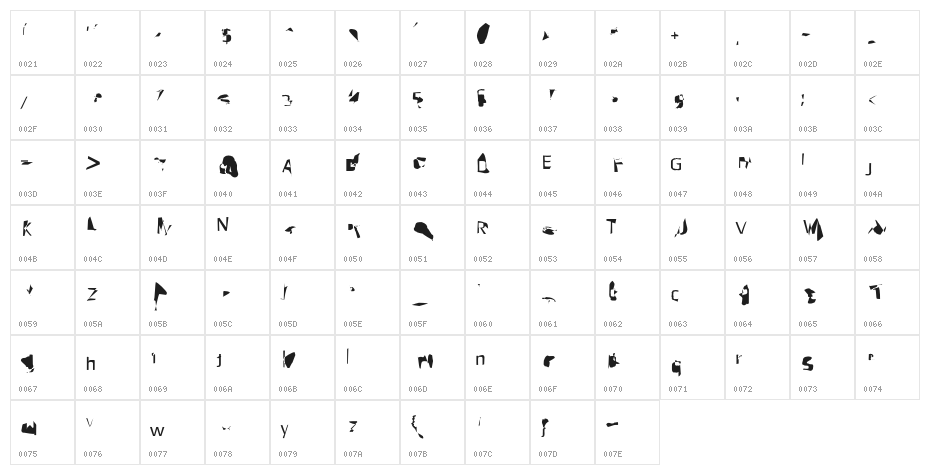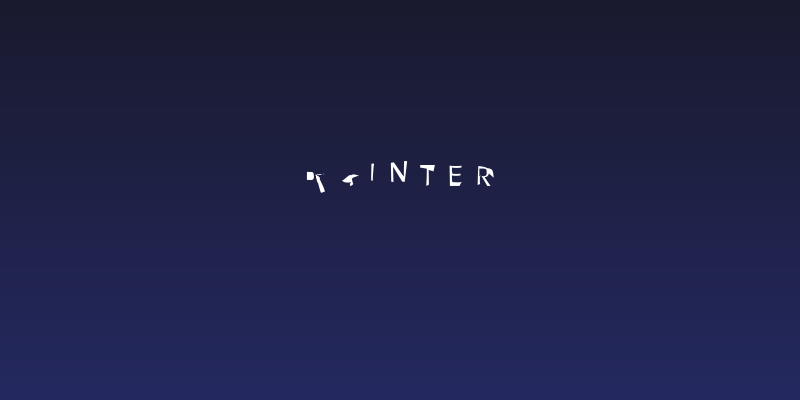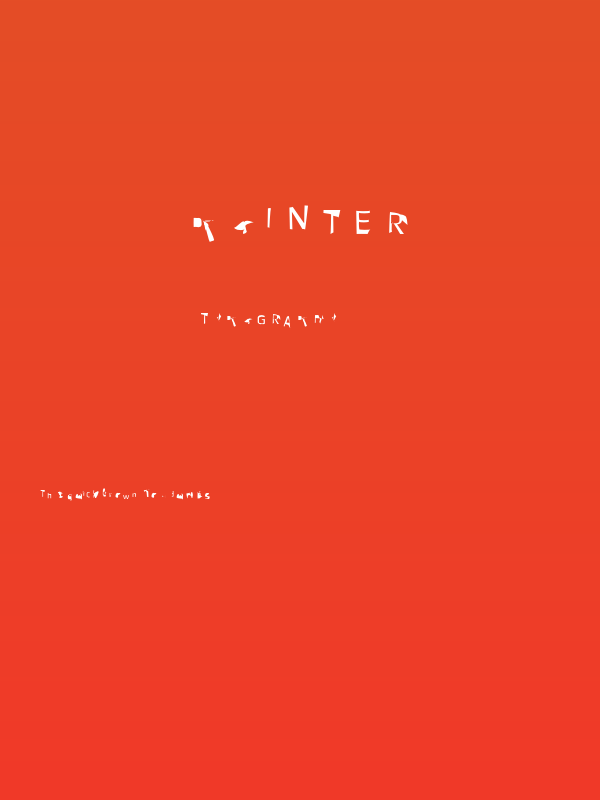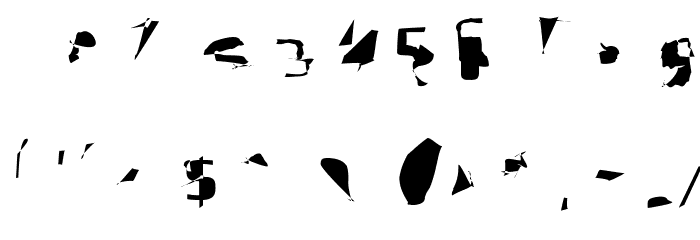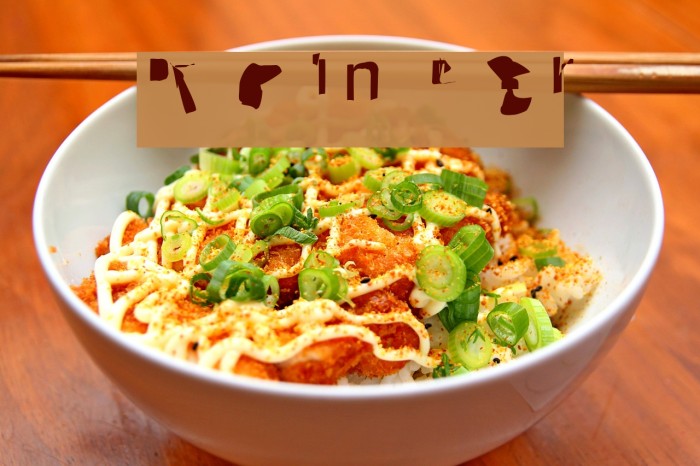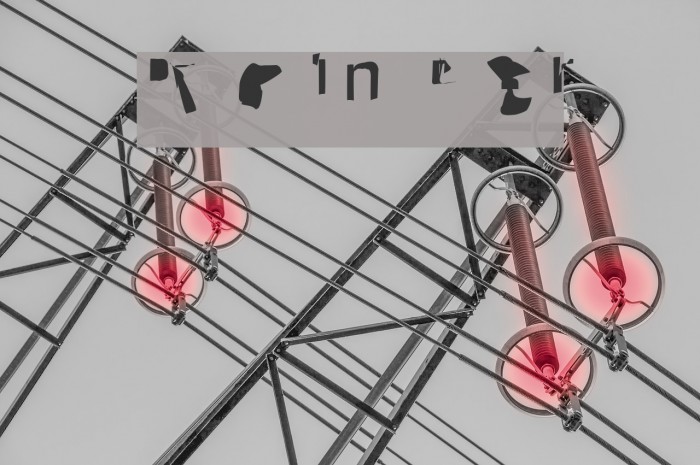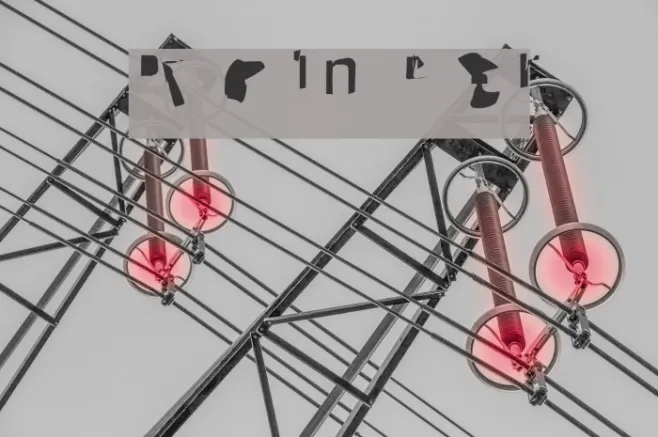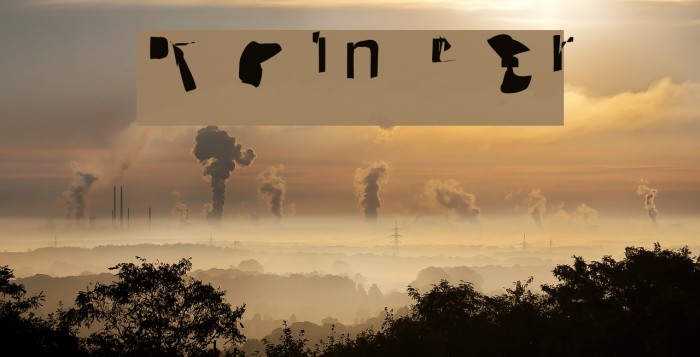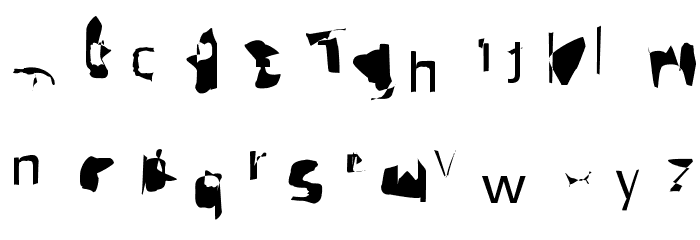
Pointer Font
Pointer Description
This font features a highly abstract and fragmented design, with characters appearing as if they are composed of torn paper or shattered glass. The letters are irregular and jagged, creating a chaotic and dynamic visual effect. Each character is unique, with varying degrees of fragmentation, making it difficult to discern the traditional letter forms at first glance. The font's style is bold and experimental, pushing the boundaries of conventional typography. It evokes a sense of disruption and modernity, suitable for projects that aim to capture attention and convey a message of breaking norms.
| Proposed Projects | Ideal for avant-garde posters, album covers, or any project that requires a striking, unconventional typeface. |